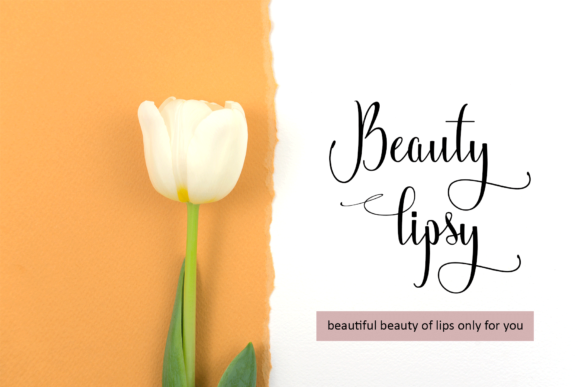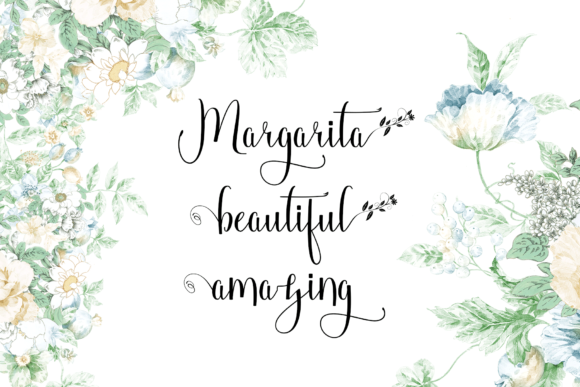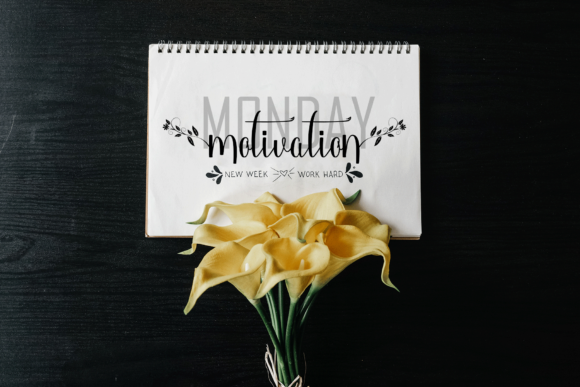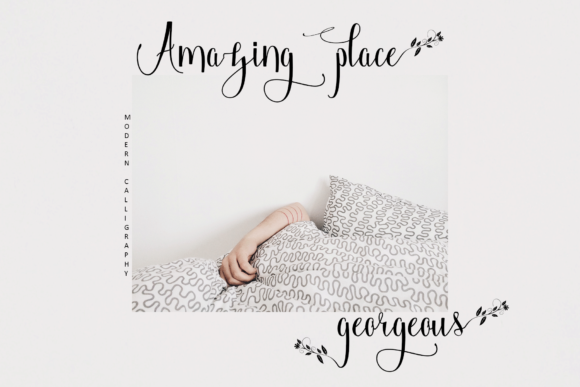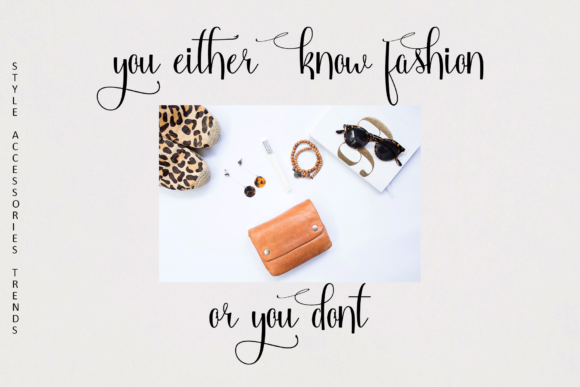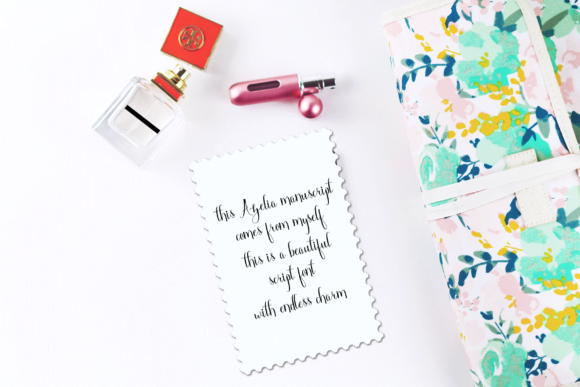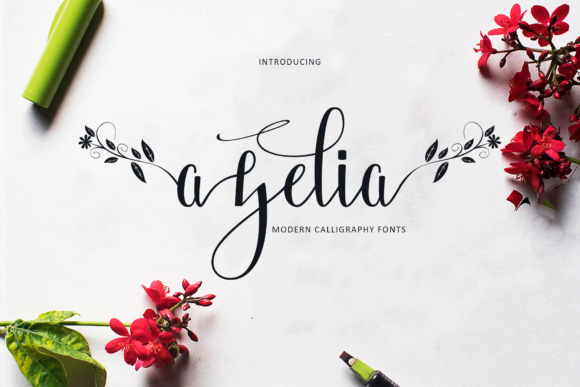
Azelia Font: A Handwritten Typeface for Creative Expression
The Azelia font is a beautiful, purely handwritten typeface that has gained popularity among designers and crafters for its natural and unique characteristics. This versatile font is perfect for a wide range of creative projects, including invitations, signatures, blogs, social media, business cards, product brands, and much more!
What Makes Azelia Font Special?
The Azelia font stands out from other typefaces due to its handwritten nature, which gives it a personal and organic feel. Its natural characteristics make it an excellent choice for designers and crafters looking to add a touch of warmth and personality to their projects. Whether you’re creating a wedding invitation, a social media post, or a business card, the Azelia font is sure to make your design stand out.
The Azelia font is an excellent choice for a wide range of creative projects, including:
- Invitations: Whether you’re planning a wedding, birthday party, or baby shower, the Azelia font is perfect for creating beautiful and personalized invitations.
- Signatures: Add a personal touch to your digital or handwritten signatures with the Azelia font.
- Blogs: Use the Azelia font to create engaging and readable blog posts that showcase your personality and style.
- Social Media: Make your social media posts stand out with the Azelia font, perfect for creating eye-catching graphics and captions.
- Business Cards: Create professional and stylish business cards with the Azelia font, perfect for networking and marketing.
- Product Brands: Use the Azelia font to create a unique and recognizable brand identity for your products.
Why Designers and Crafters Love Azelia Font
Designers and crafters love the Azelia font for its versatility, uniqueness, and ease of use. Here are some reasons why:
- Easy to Read: The Azelia font is clear and easy to read, making it perfect for body text and captions.
- Highly Versatile: The Azelia font can be used for a wide range of creative projects, from digital designs to print materials.
- Unique and Personal: The Azelia font has a unique and personal feel, making it perfect for designers and crafters who want to add a touch of personality to their designs.
Tips for Using Azelia Font
Here are some tips for using the Azelia font in your creative projects:
- Pair with Other Fonts: Pair the Azelia font with other fonts to create a unique and visually appealing design.
- Use for Headings and Captions: Use the Azelia font for headings and captions to add a touch of personality to your design.
The Azelia font is a beautiful and versatile handwritten typeface that is perfect for designers and crafters looking to add a touch of personality to their creative projects. With its natural characteristics, ease of use, and high versatility, the Azelia font is an excellent choice for a wide range of applications. Whether you’re creating invitations, signatures, blogs, social media posts, business cards, or product brands, the Azelia font is sure to make your design stand out!